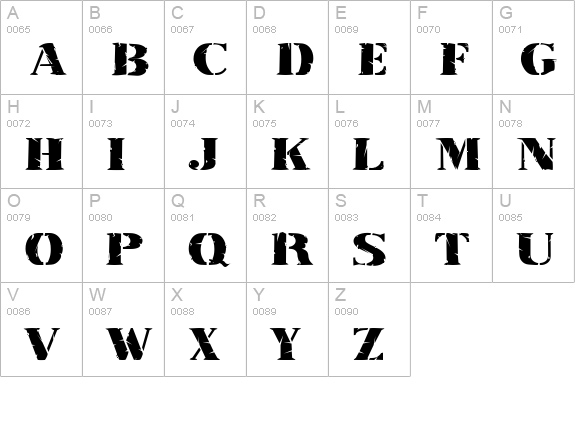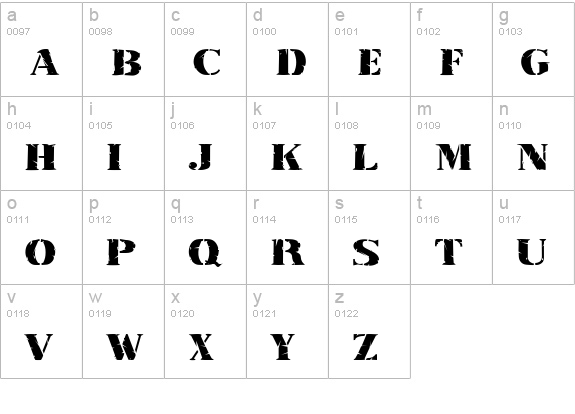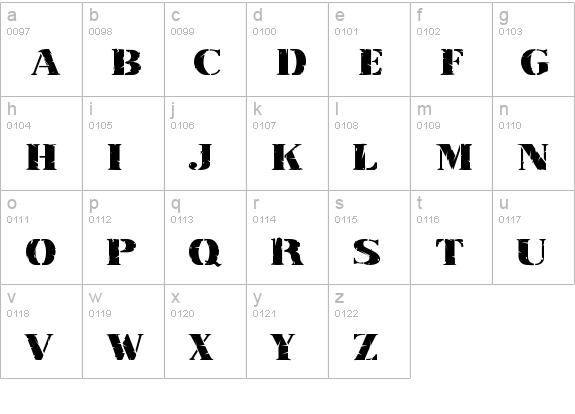
RubberStampExtended Normal Font Details
RubberStampExtended Normal is the standard, neutral variant in the RubberStampExtended typeface family \xE2\x80\x94 well suited to general body text, paragraphs, and standard typographic work.
RubberStampExtended Normal font is a unique and versatile typeface that captures the essence of stamped lettering with a modern twist. Its rugged yet legible appearance makes it perfect for adding a touch of authenticity to your designs. This font exudes a sense of handmade charm and adds a personal touch to any project it is used in. The best part is that RubberStampExtended Normal font is available for free download at FontsMarket.com. Get your hands on this one-of-a-kind typeface and elevate your design projects with its distinctive character and style. Download now and start creating eye-catching designs that stand out from the crowd.